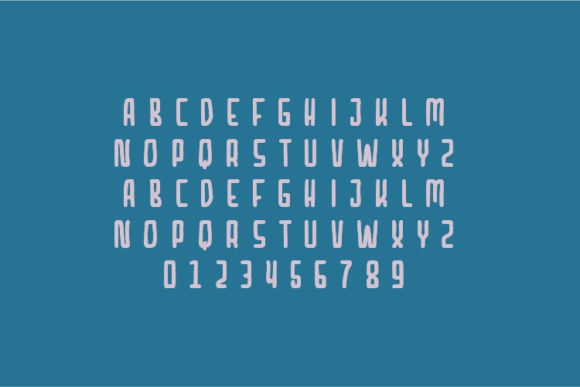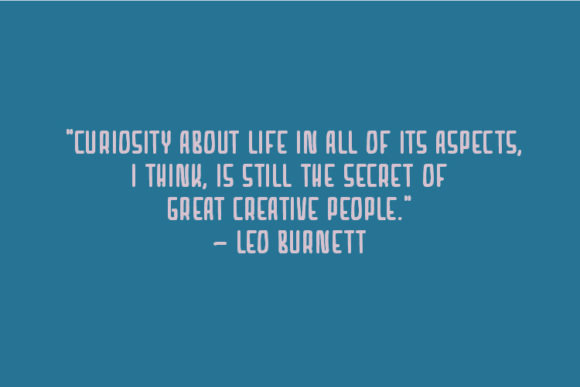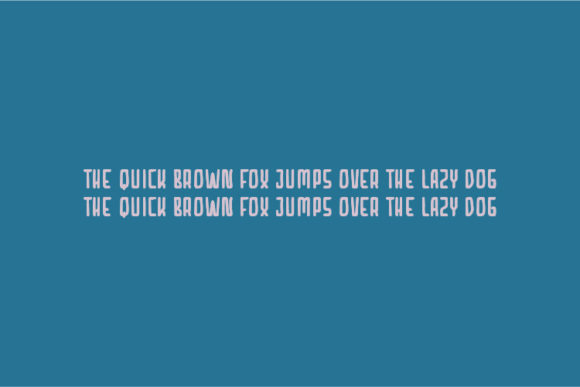
The Perfect Touch for Your Next Creative Project
There’s nothing quite like the feeling of brainstorming a new idea and watching it come to life. As a designer, you’ve probably experienced that thrill of excitement when a concept clicks, and you can’t wait to bring it to fruition. For me, that moment often starts with a blank page and a dash of imagination. But what if you had the perfect tool to bring your ideas to life? Enter the Framhouse Font, a charming and natural handwritten font that’s sure to add a touch of magic to your next project.
This delightful font is perfect for cartoon-related designs, children’s games, or any creation that requires a playful and whimsical feel. Whether you’re working on a logo, a character design, or a marketing campaign, the Framhouse Font is an amazing choice. Its value lies in its versatility and ability to evoke a sense of wonder and curiosity. As a designer, you’ll love the freedom to experiment and push the boundaries of your creativity with this beautiful font.
Framhouse Font Key Features
- Font Family: Framhouse Font is a sans-serif font family designed for digital use.
- Unique Characteristics: Framhouse Font features a clean, modern design with subtle rounded edges, making it perfect for digital interfaces, branding, and publishing.
- Font Styles: Includes a range of font styles, including regular, bold, italic, and bold italic, providing flexibility for designers and typographers.
Framhouse Font Review
First of all, I’d like to say that I’m quite impressed with the overall aesthetic of the Framhouse Font. It’s a great choice for anyone looking for a modern and sophisticated font. ✨ The font’s sleek lines and minimalistic design make it perfect for corporate branding, luxury products, or any other situation where you want to convey a sense of high-end quality.
One of the things I appreciate most about Framhouse is its versatility. ✨ It comes in a range of weights and styles, from light to bold, and even has a script version, making it easy to use in various design contexts. The font is also highly legible, even at small sizes, which is a major plus.
However, there are a few limitations to consider. ⚠️ For one, the font may be too minimalist for some designers’ tastes. If you’re looking for a font with a lot of flair or personality, Framhouse might not be the best choice. Additionally, the font’s lack of ornamentation or decorative elements may make it less suitable for certain design projects, such as children’s books or playful websites.
Overall, I think Framhouse Font is a solid choice for designers who want a clean, modern font that’s easy to use and highly versatile. With its range of weights and styles, it’s a great option for a variety of design projects.
- Works well for corporate branding, luxury products, and high-end designs
- Highly legible, even at small sizes
- Comes in a range of weights and styles
- Script version available
Framhouse Font Practical Application Guide
Tips for Getting the Most Out of Framhouse Font
Use the Framhouse Font to create elegant and sophisticated designs.
Pair the font with high-quality images and graphics to create visually appealing designs.
Experiment with different font sizes and colors to create contrast and visual interest.
Use the Framhouse Font for:
Wedding invitations and stationery.
Business cards and marketing materials.
Wedding and
Alternatives to Framhouse Font
Playfair Display is an elegant and luxurious serif font, perfect for use in high-end branding, luxury products, and formal invitations. It features intricate details and ornate flourishes, making it a great choice for designers who want to add a touch of sophistication to their designs. Compared to Framhouse Font, Playfair Display is more ornate and luxurious, making it ideal for formal events and high-end branding.